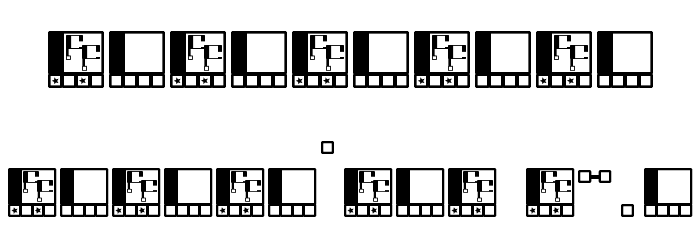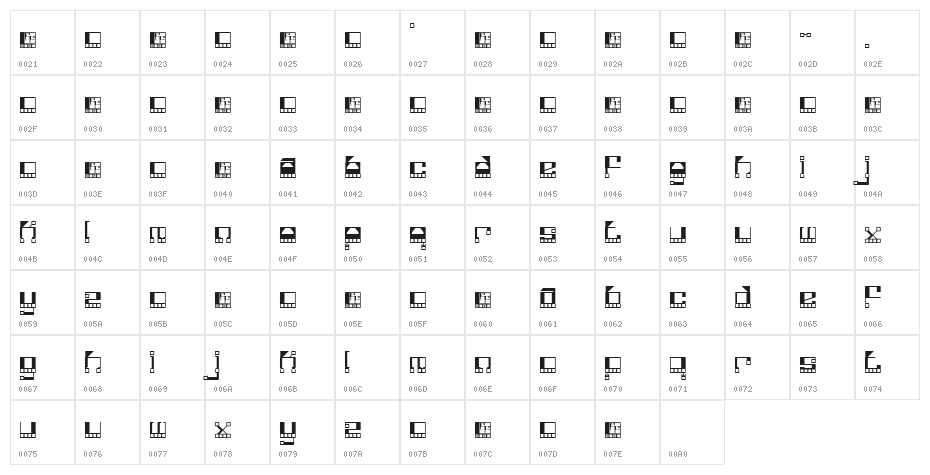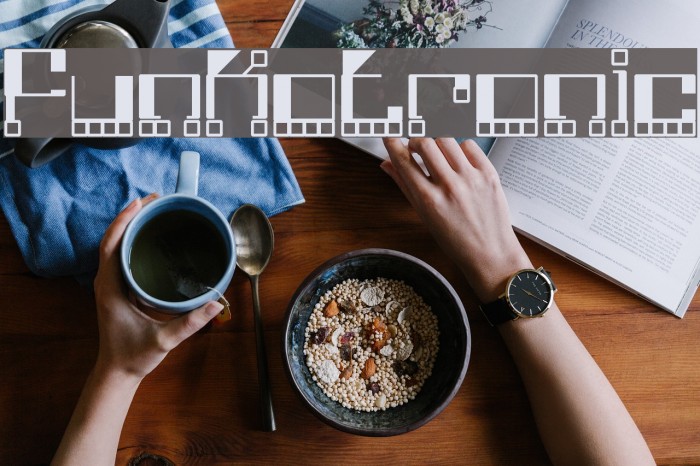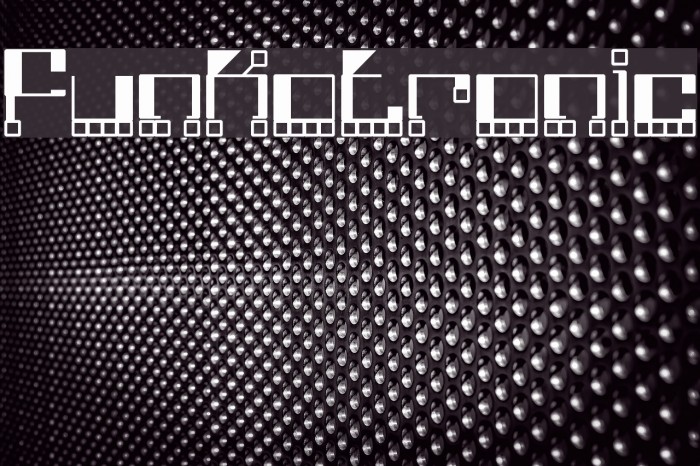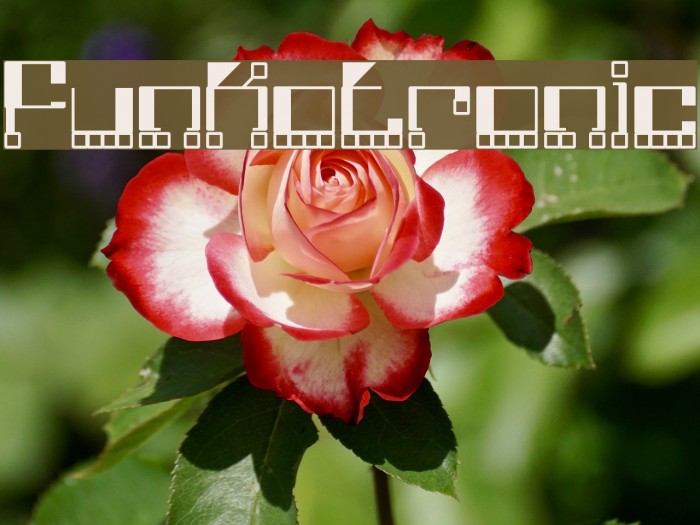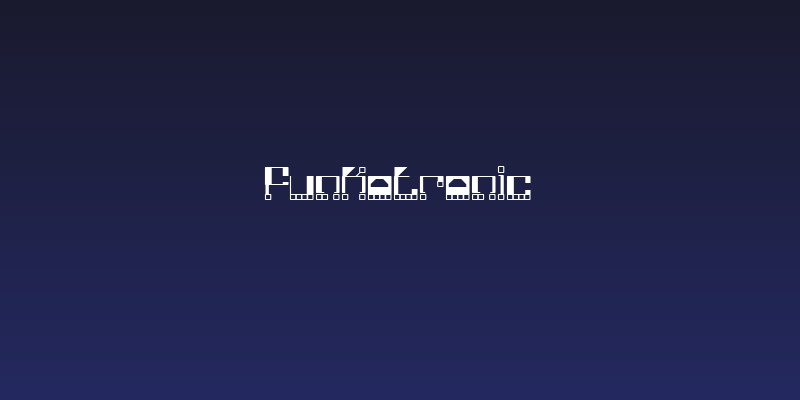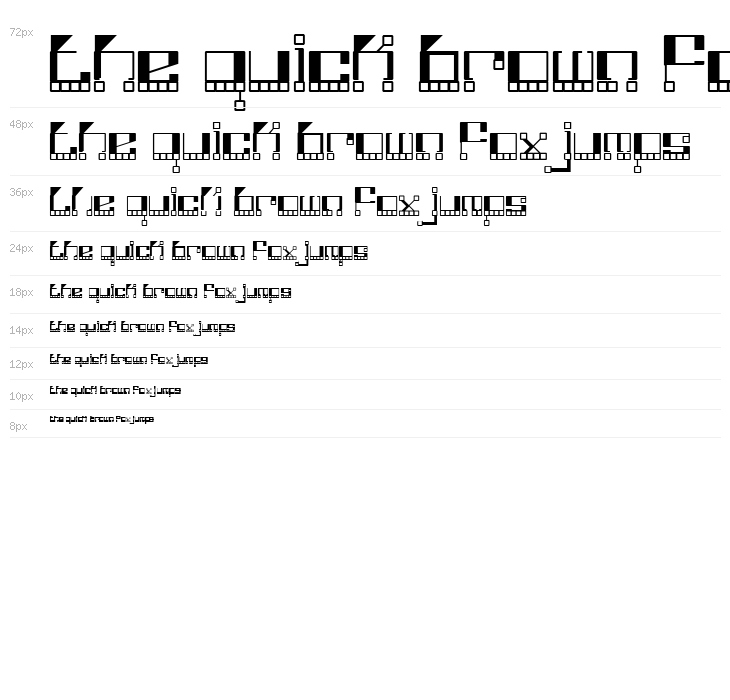
Funkotronic Font
Funkotronic Description
This font exhibits a highly decorative and futuristic style, characterized by its geometric and blocky letterforms. Each character is constructed with a combination of solid and outlined elements, creating a unique visual rhythm. The design incorporates a digital, almost pixelated aesthetic, reminiscent of early computer graphics or retro video game typography. The uppercase and lowercase letters share a consistent design language, with angular cuts and sharp edges that enhance its modern appeal. The numerals and special characters maintain this cohesive look, ensuring uniformity across all glyphs.
| Proposed Projects | Ideal for sci-fi themed projects, video game titles, tech branding, or any creative work seeking a modern, digital look. |